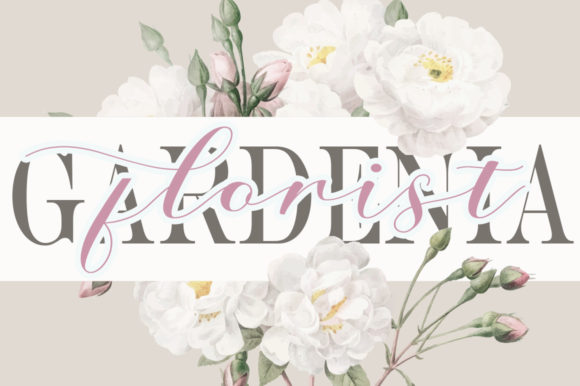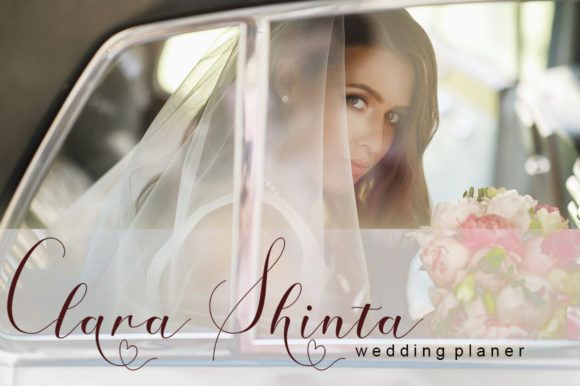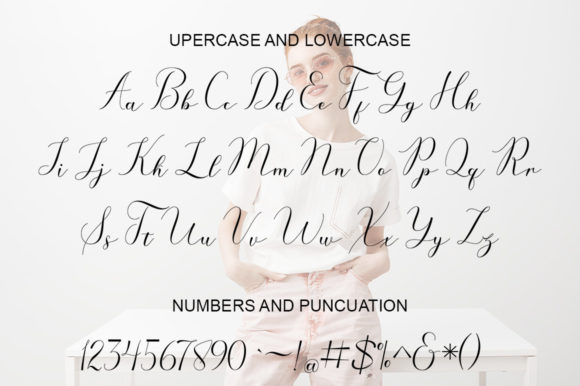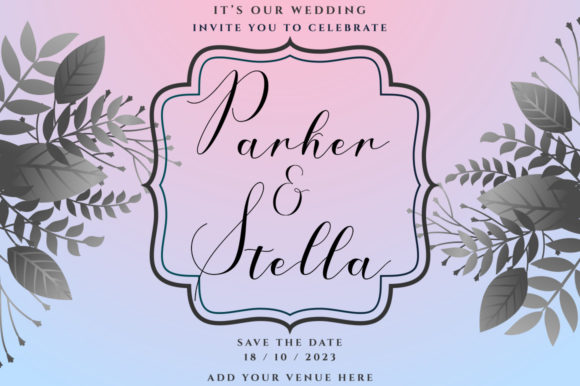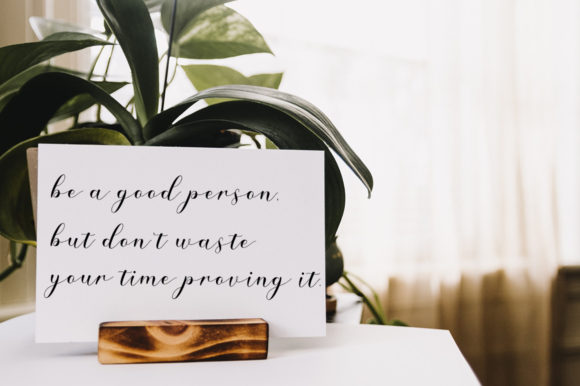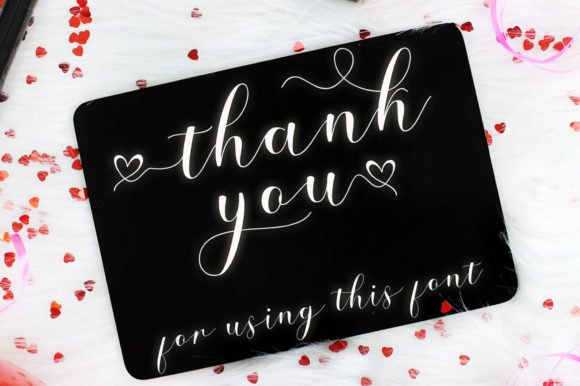
The Elusive Perfect Font: My Encounter with Amanda
I still remember the frustration of scrolling through font after font, searching for the perfect one to complete my design project. It was for a wedding invitation, and I wanted something that exuded elegance and sophistication. That’s when I stumbled upon Amanda, a beautiful and refined script font that has since become a staple in my design toolkit.
A Personal Review of Amanda
Amanda is a classy, elegant, and modern script font that has won my heart. Here’s what I love about it:
- ✨ Elegant and refined design that’s perfect for logos, branding, invitations, and wedding designs
- ✅ PUA encoded, making it easy to access all glyphs and swashes
- 💫 Highly versatile and can be used for a wide range of design projects, from social media posts to stationery
- 🔥 The font’s modern look and feel make it perfect for designers who want to create something fresh and unique
While Amanda is an excellent font, it’s not without its quirks. Here are a few things to keep in mind:
- 🤔 Some users may find the font a bit too refined or delicate for certain design projects
- ⚠️ As with any script font, it may not be the best choice for body text or long blocks of text
The Story Behind Amanda
Amanda was designed by a team of typographers who wanted to create a font that exuded elegance and sophistication. The font’s design is inspired by classic calligraphy and modern typography, making it perfect for a wide range of design projects.
| Can I use Amanda for my wedding invitation design? | Absolutely! Amanda is a popular choice for wedding designs, and its elegant and refined look makes it perfect for wedding invitations, save-the-dates, and other wedding-related materials. |
| Is Amanda a PUA-encoded font? | Yes, Amanda is a PUA-encoded font, which means you can access all the glyphs and swashes with ease. |